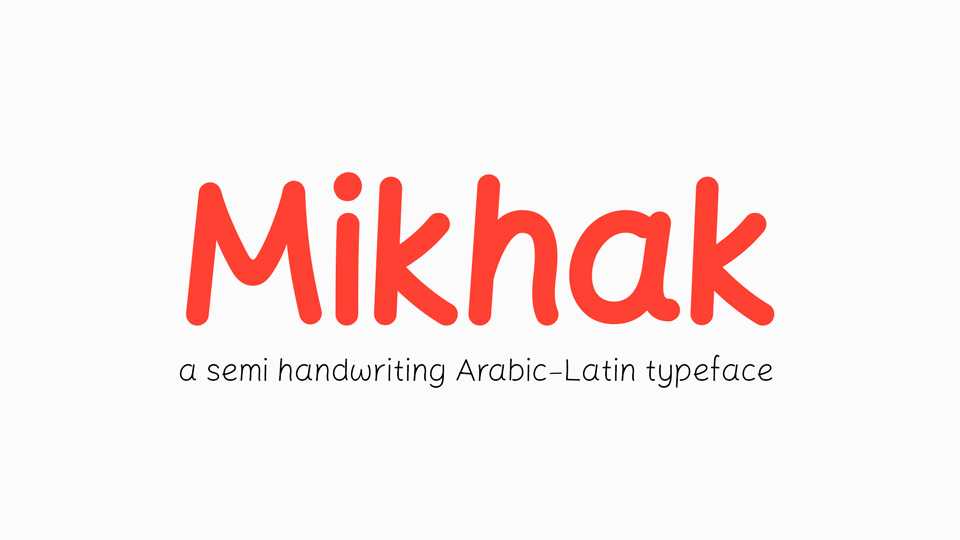
Download Mikhak typeface, a simple monoline semi handwriting Arabic-Latin font family in 5 weights and variable version. Mikhak has an authentic casual shape so this design will applicable on any occasion design.
Designer: Amin Abedi